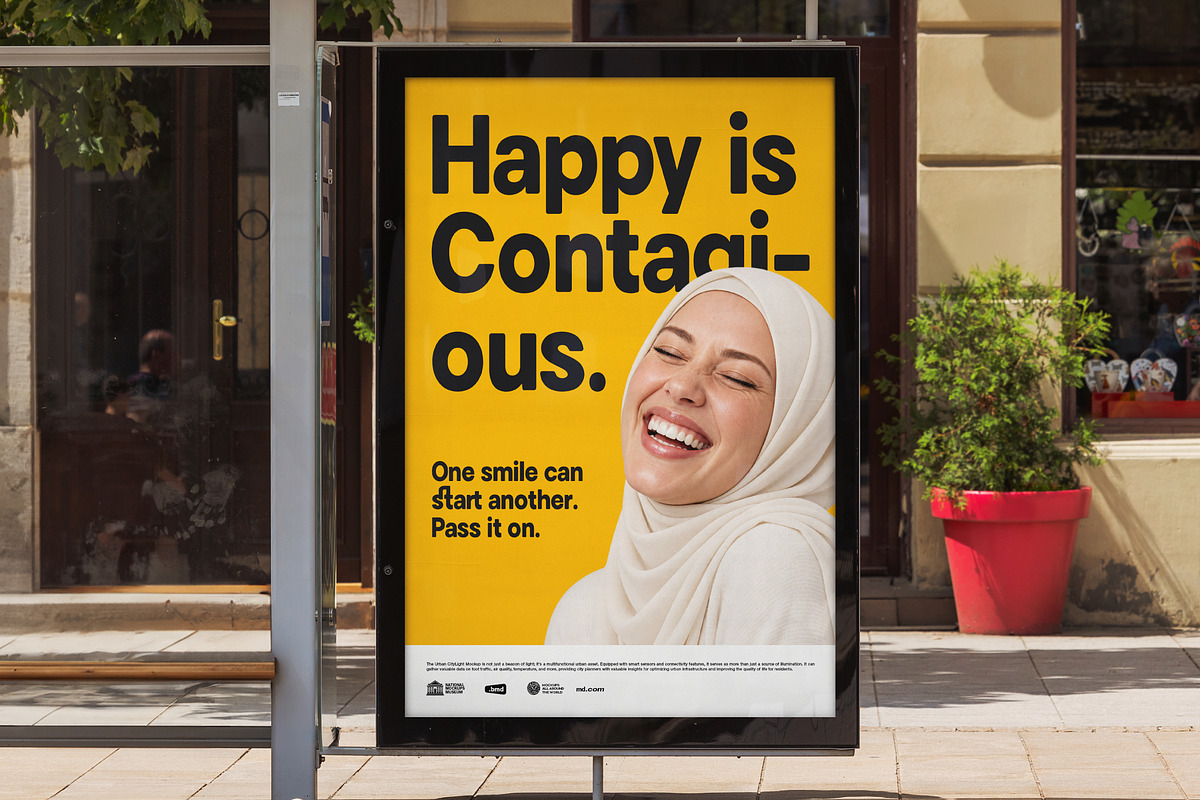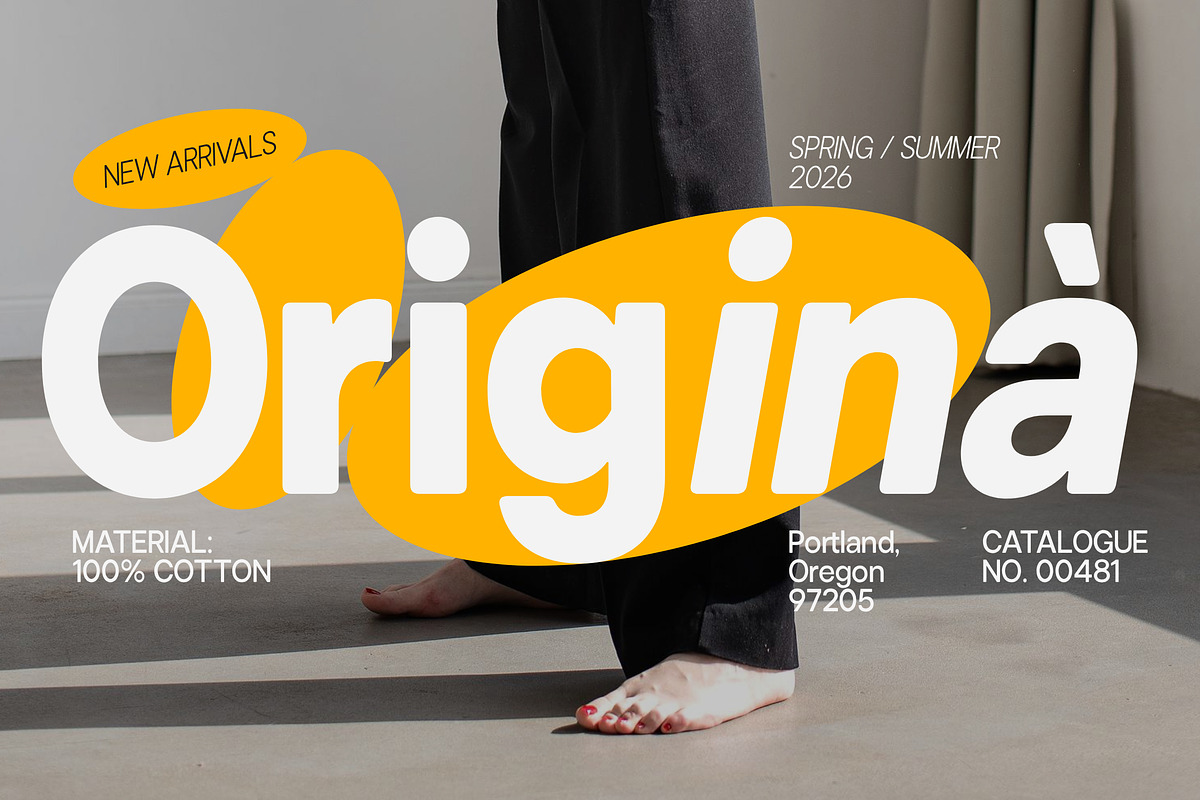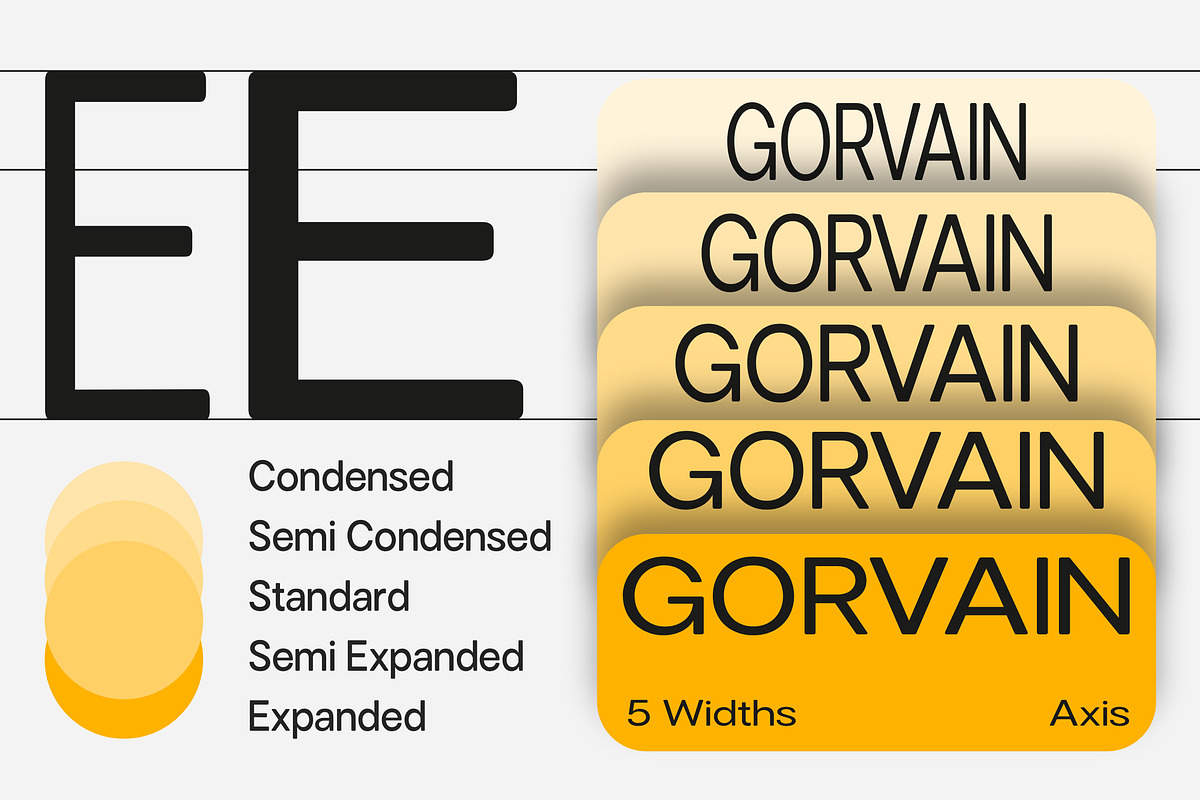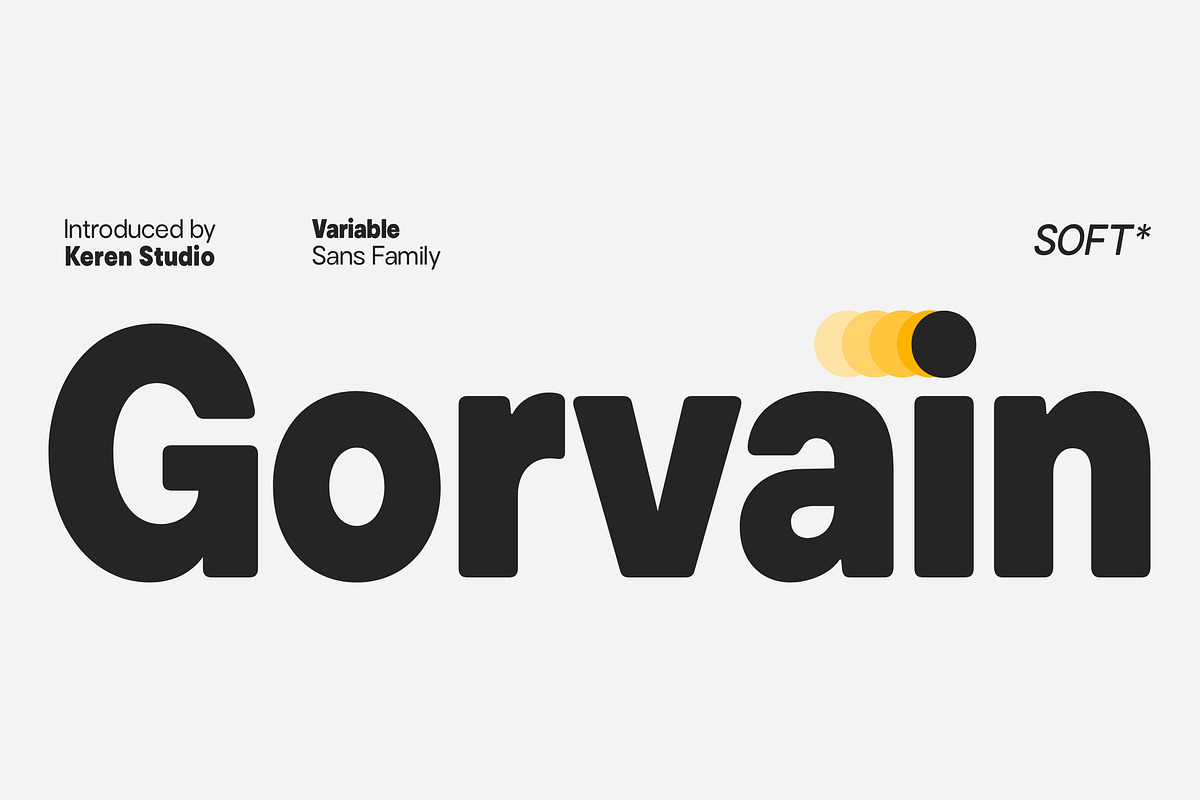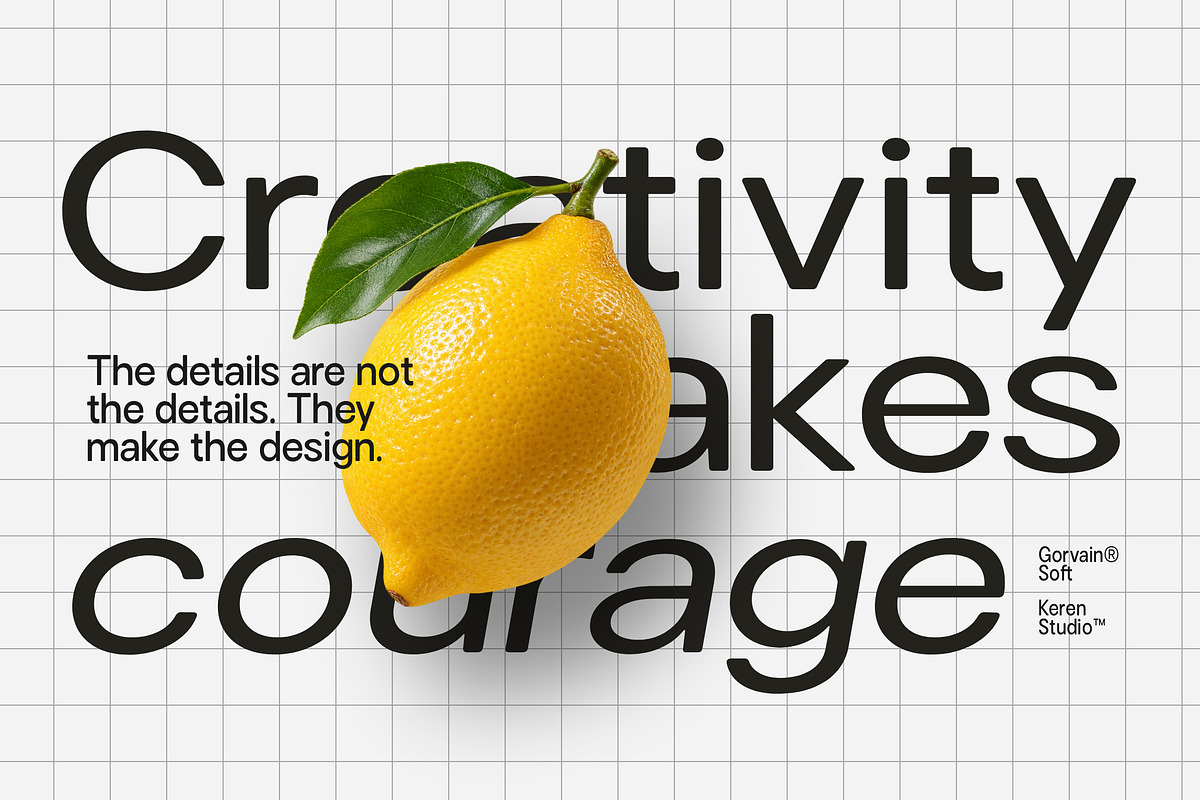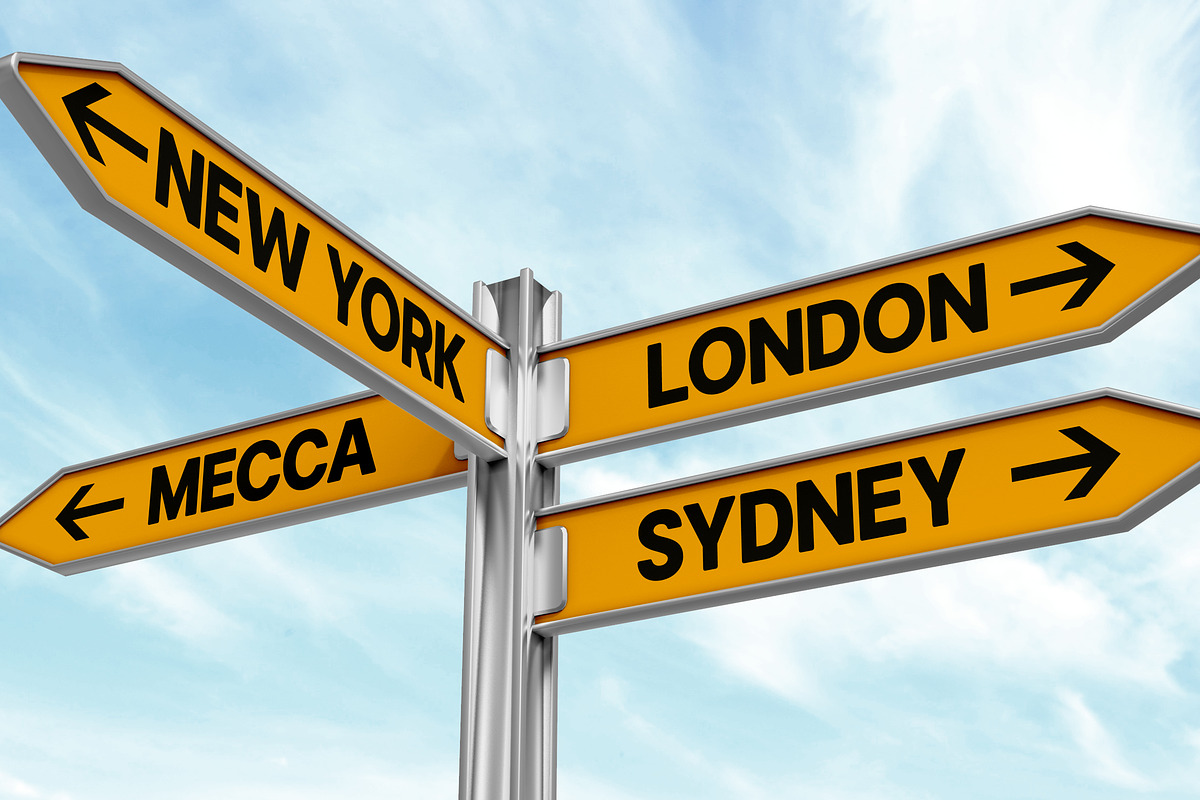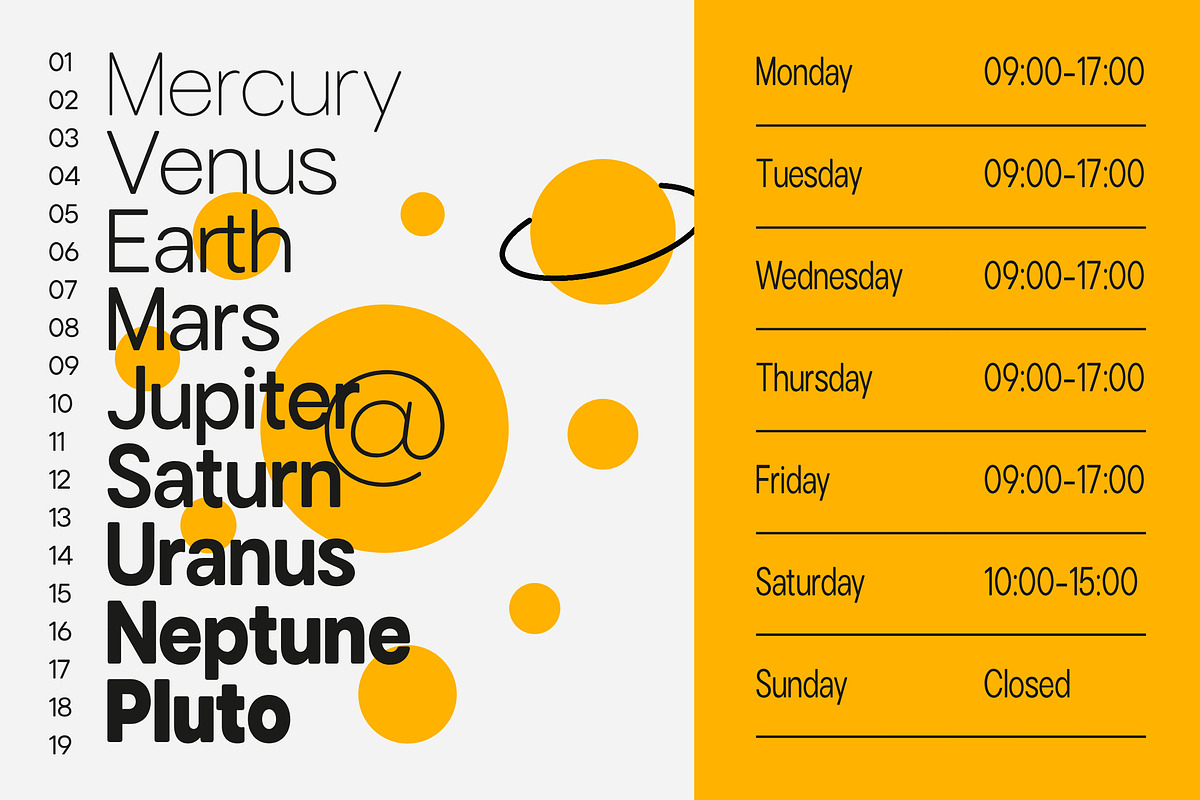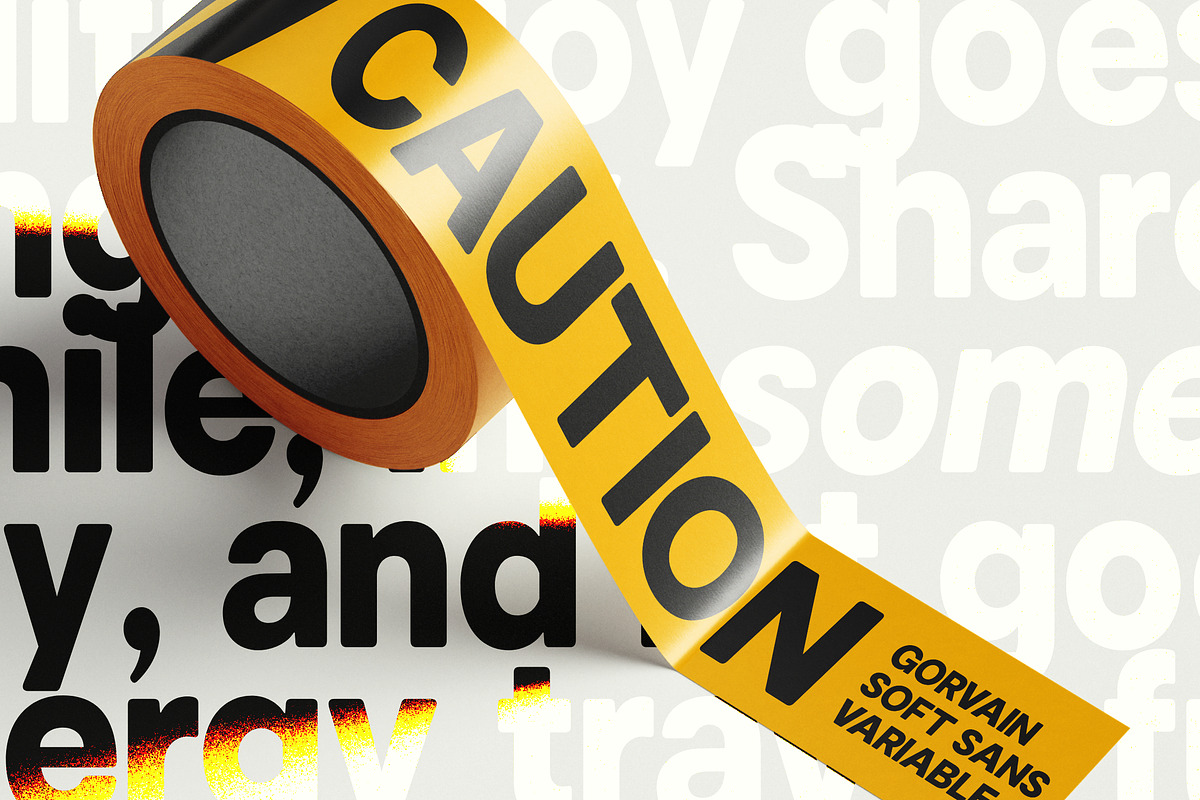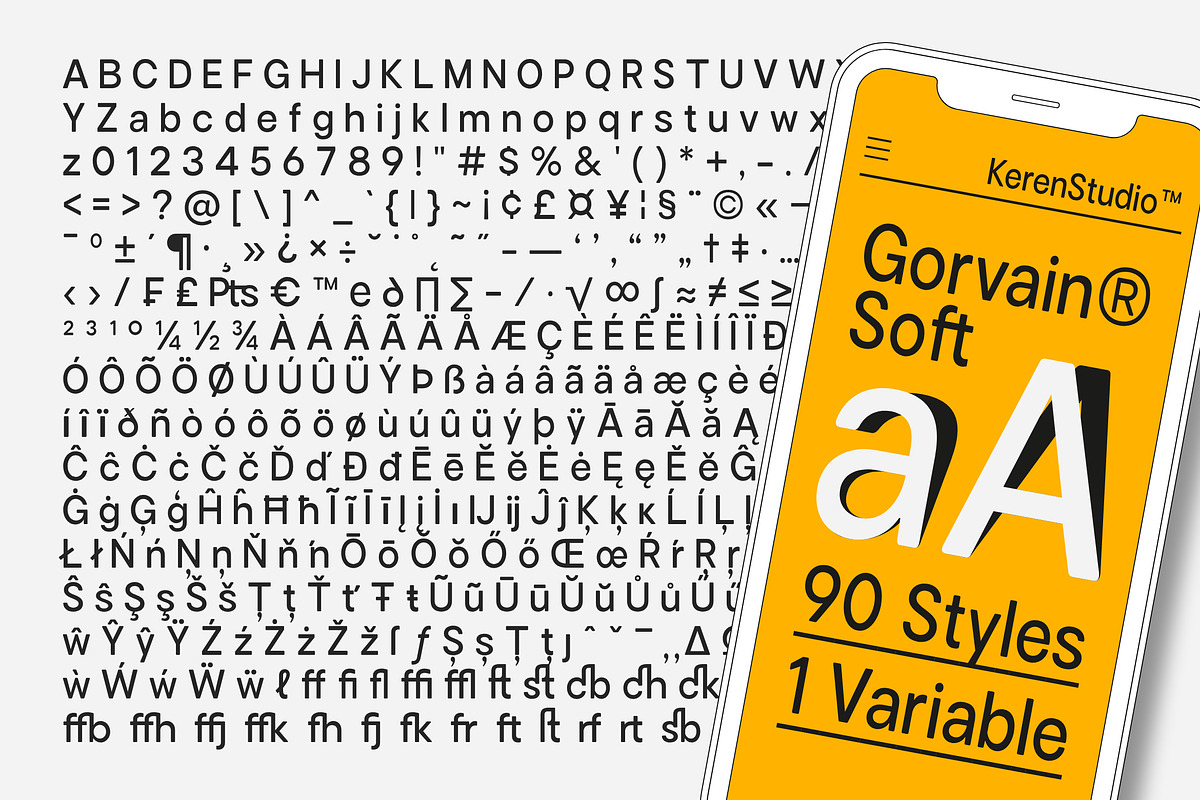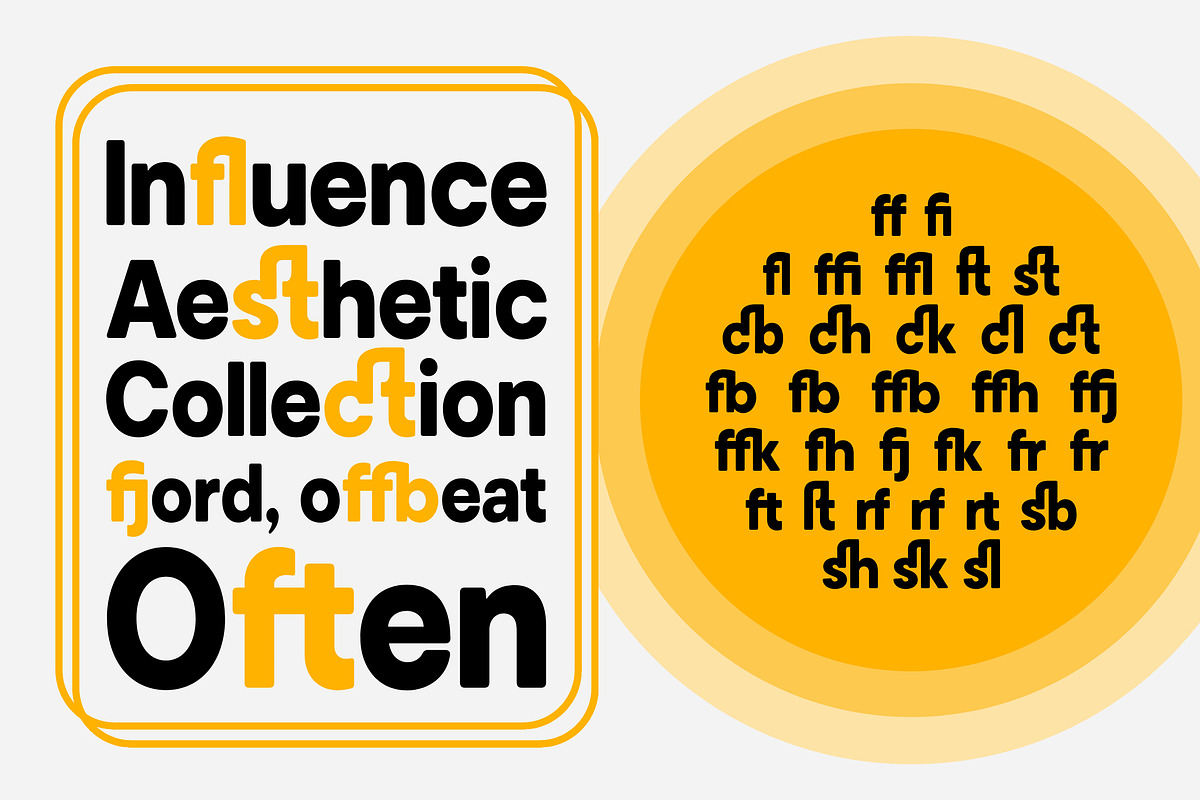
Gorvain Soft
Gorvain Soft Variable is a contemporary soft sans serif typeface designed to bring a smooth, friendly, and refined character to modern typography. Its softly rounded forms create a clean and approachable appearance while maintaining excellent visual presence and readability.
Built as a variable font, Gorvain Soft offers extensive flexibility through three adjustable axes: Weight, Width, and Slant. This allows designers to seamlessly move from light and elegant styles to bold and expressive weights, while also adjusting the proportions and slant to achieve the desired typographic personality.
With its combination of soft curves, balanced proportions, and versatile variable controls, Gorvain Soft is ideal for branding, logos, editorial design, packaging, advertising, posters, social media graphics, websites, UI/UX, and modern display typography.